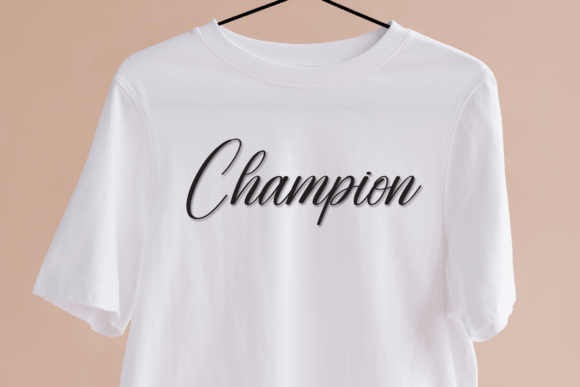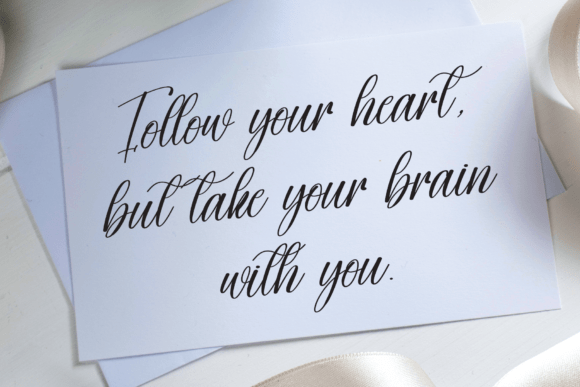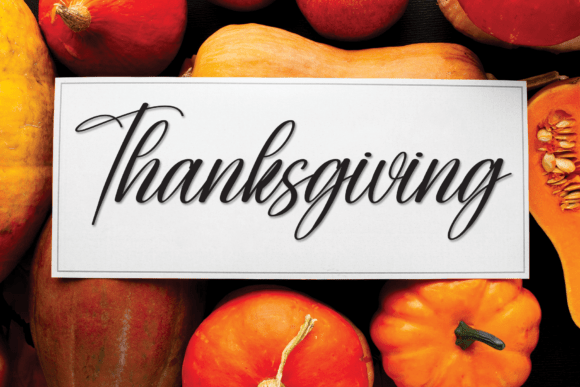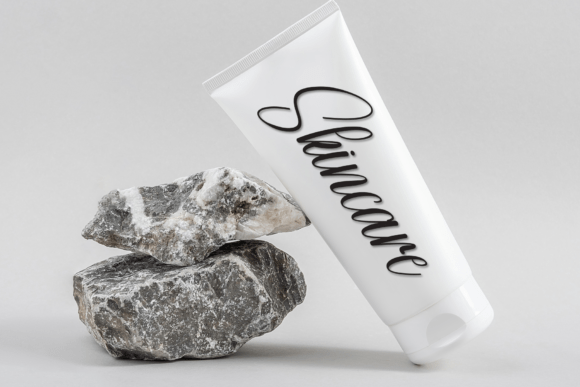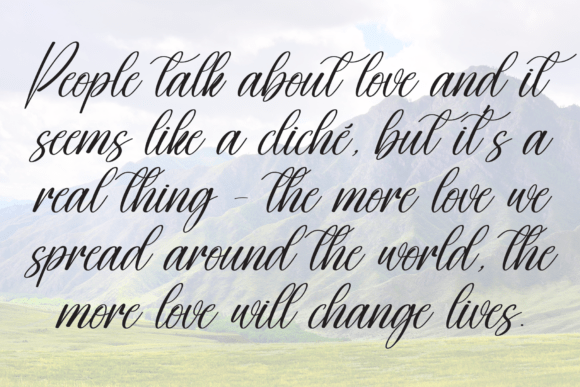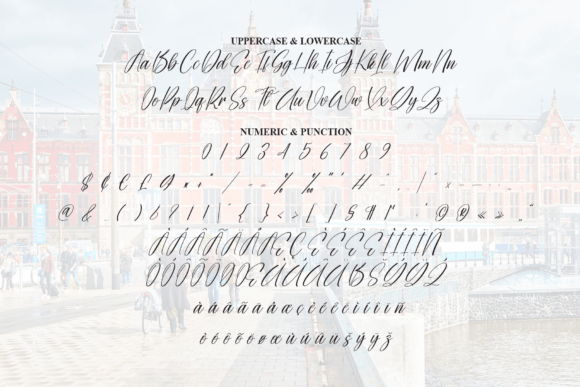
The Perfect Brush Stroke: Unleashing the Power of the Amsterdam Font
Have you ever been stuck in front of a blank canvas, staring at a blank page, waiting for that spark of creativity to ignite? For designers, this moment is all too familiar. It’s the moment when the perfect font can make all the difference between a design that’s just ‘okay’ and one that truly stands out.
That’s where the Amsterdam Font comes in – a stylish script font that embodies the essence of hand-painted calligraphy with a modern twist. With its fluid brush strokes and dynamic curves, it’s the perfect addition to any design project. Whether you’re creating a logo, invitation, or social media graphic, the Amsterdam Font adds a touch of sophistication and creativity that’s hard to resist.
Amsterdam Font Key Features
- Unique Characteristics: Amsterdam Font features a distinctive, modern design with a mix of geometric and organic elements, making it perfect for creative and design-focused projects.
- Weight and Style: The font family includes Light, Regular, Medium, Bold, and Extra Bold weights, as well as Italic and Oblique styles for added versatility.
Amsterdam Font Review
First of all, I love the unique and quirky feel of the Amsterdam Font. ✨ It’s a great choice for projects that need a touch of whimsy and playfulness. The font’s rounded edges and soft lines make it perfect for titles and headings, and it’s also great for body text when used in a larger size.
Another great thing about the Amsterdam Font is its versatility. ✨ It can be used in a variety of design contexts, from digital products to print materials. The font is also highly legible, making it a great choice for projects where readability is key.
- ⚠️ The Amsterdam Font may not be the best choice for formal or professional projects, as its playful nature may come across as unprofessional.
- ⚠️ The font may not be as effective in smaller sizes, as the rounded edges can become difficult to read.
Overall, I think the Amsterdam Font is a great addition to any designer’s toolkit. It’s a fun and creative font that can add a lot of personality to a project. However, it’s not a one-size-fits-all solution, and designers should use their discretion when deciding whether to use it.
For best results, use the Amsterdam Font for headings and titles, and pair it with a clean and simple font for body text.
For a more professional look, use the Amsterdam Font in combination with other fonts that complement its unique characteristics.
For a more cohesive look, use the Amsterdam Font consistently throughout your presentation or document.
Use the Amsterdam Font for:
– Headings and titles in creative projects.
– Branding and marketing materials.
– Designing menus and signage.
Remember to balance the Amsterdam Font with other fonts to avoid overwhelming the viewer’s senses.